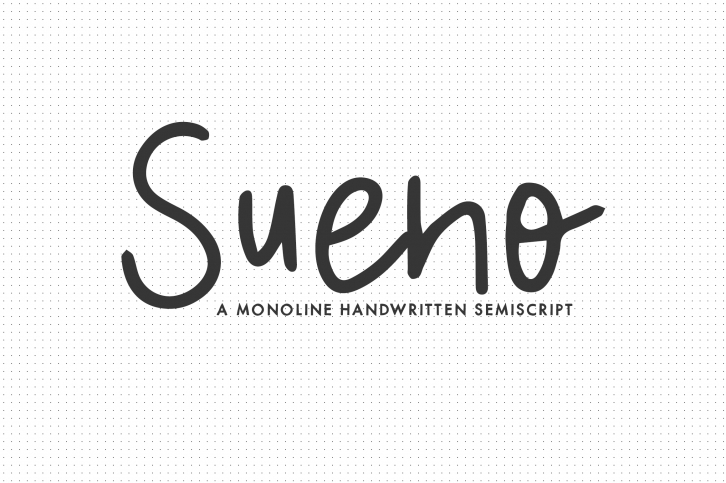
Sueno - A Monoline Semi-Script FONT Download
Sueno - A Monoline Semi-Script Font Download
Sueno is a great font that was designed by Mikko Sumulong. Imagine the amount of combinations you can create using this font! The archive is 9.98 MB and it was released on December 1, 2017. Sueno looks beautiful on wedding invitations, greeting cards, logos, posters, labels, t-shirt designs, logos, business cards and is perfect for use in ink or watercolor works, fashion, magazines, packaging and food menus, children's books and more!